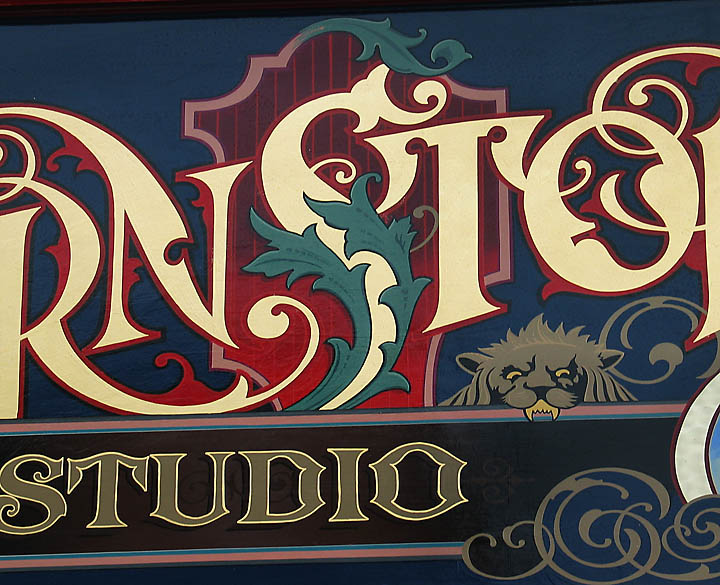
I bought the Gold Leaf techniques by Kent H Smith and I'm looking to work my way through it. So I need to get me some quality brushes to get started.
However, lettering brushes are really hard to come by here in Brazil. I want to buy a basic set of brushes to get started with sign-painting and the countless choices of brand, hair, length and type available at the letterheads sign supply shop is quite overwhelming.
I sifted through the forum and found topics for reference, but there are just to many to fashion up a concise list.
Julio, go to the www.wrightsoflymm.co.uk website look under brushes at the series 1315 pure sable chisel writers. they sell a set I think it's 0-6 + 9 for the sizes they come in a nice tin box, these are great for gold work & a good all round brush, you will not be disappointed, hope this helps.......
Julio, look at Dick Blick. they used to be a signpainter's supply house, now they are much more about artist supplies but over in a corner they have a few lettering brushes (often called "quills" because the hair is held in a bird quill or, nowadays, a plastic tube)
These look to be "brown hair" brushes, more what American signpainters would use for lettering on glass. Studden is English trained, and the English love their red sable brushes, but in my (American) training we only used red sable for showcard (tempera) work, not for oil-based paints.
Squirrel hair is softer than sable, so it is more forgiving if you're not very confident. Squirrel comes in two varieties: brown hair and grey hair (you can see the difference when they are side-by-side). The grey is stiffer than the brown. Stiffer hairs have more "snap" to them, and on a good day when everything is right, a stiffer brush will practically make the letters by itself. But being old and out of practice I mostly use the browns, they don't talk back. and they are soft, so they lay paint better on glass.
Also, the English used to use pointed brushes, where American quills were always flat-topped. I assume that a pointed brush works differently from a 'chisel tipped' brush. Blick seems to have a lot of pointed quills - maybe for watercolor painters? Look carefully at photos if you order online.
The kind of paint you use would also affect your brush choice - heavier paint requires a stiffer brush. 1Shot can be thinned to flow well from any squirrel brush, and would probably be used a bit thicker with a sable.
One quick note - Blick has it backward on their "quill" page: they say, "Use a squirrel quill with water based paints and a badger quill with oil based paints." I dunno about the badger hair, but squirrel hair will swell up and become useless if it gets in water. Red sable, to its credit, can work in oil or in water (but you'd have to wash the brush out very carefully if you wanted to go from one to the other).
I think a set of quills would be something like #2, #4, #6, #10. If you feel reckless, a big one like a #16 can be great now and then, but the prices go up fast. "Gold Leaf Techniques" describes how to clean and oil your brushes; do it.